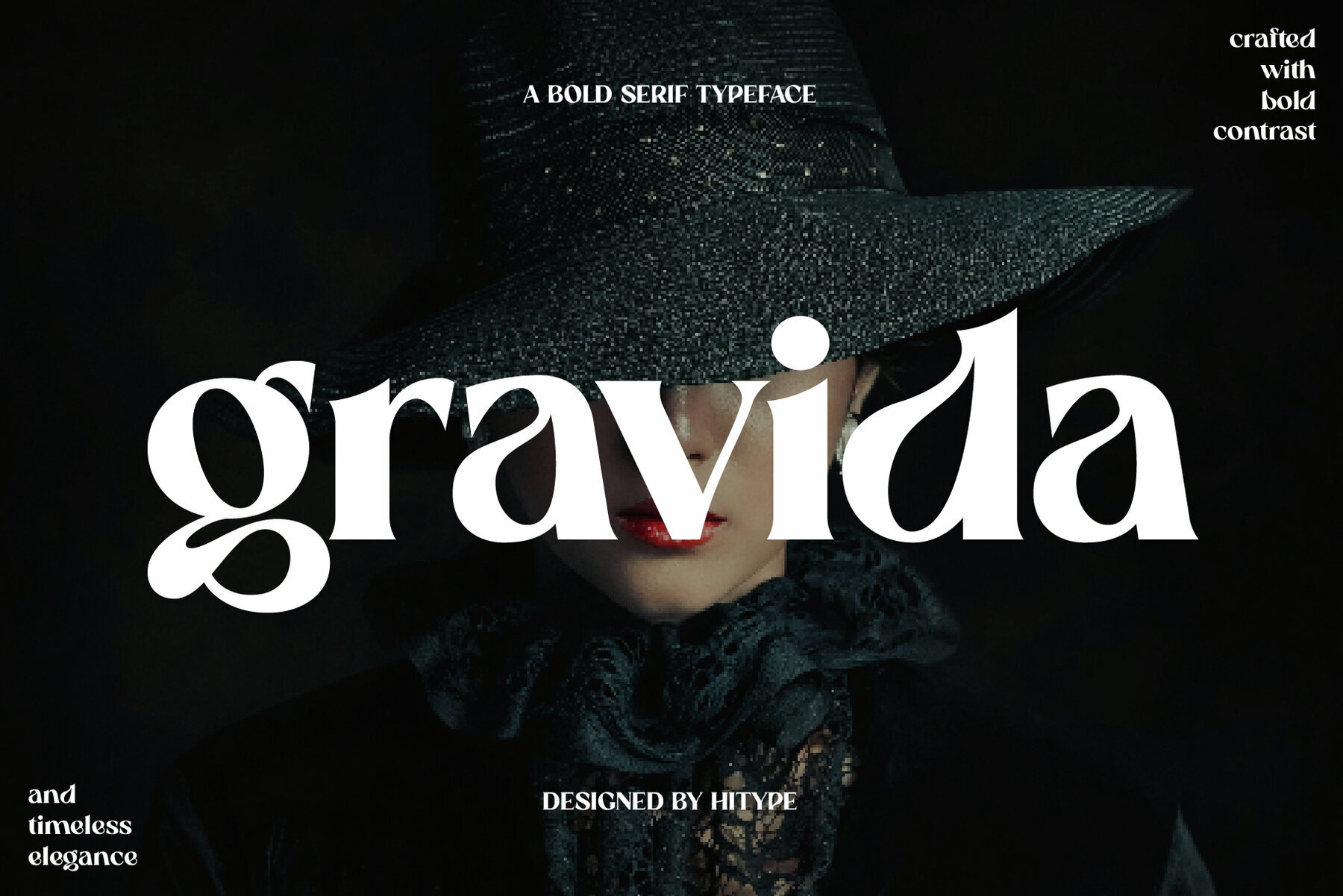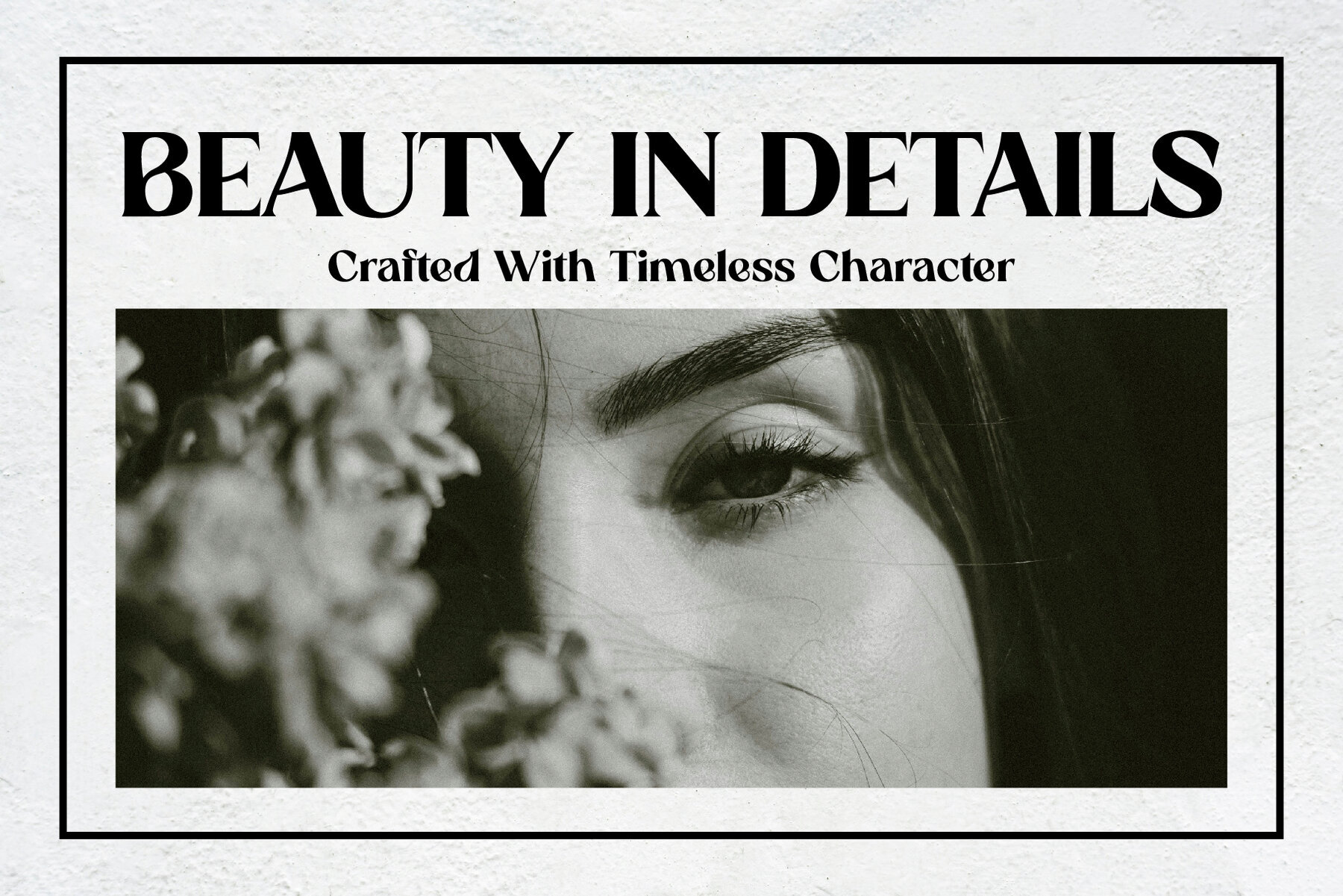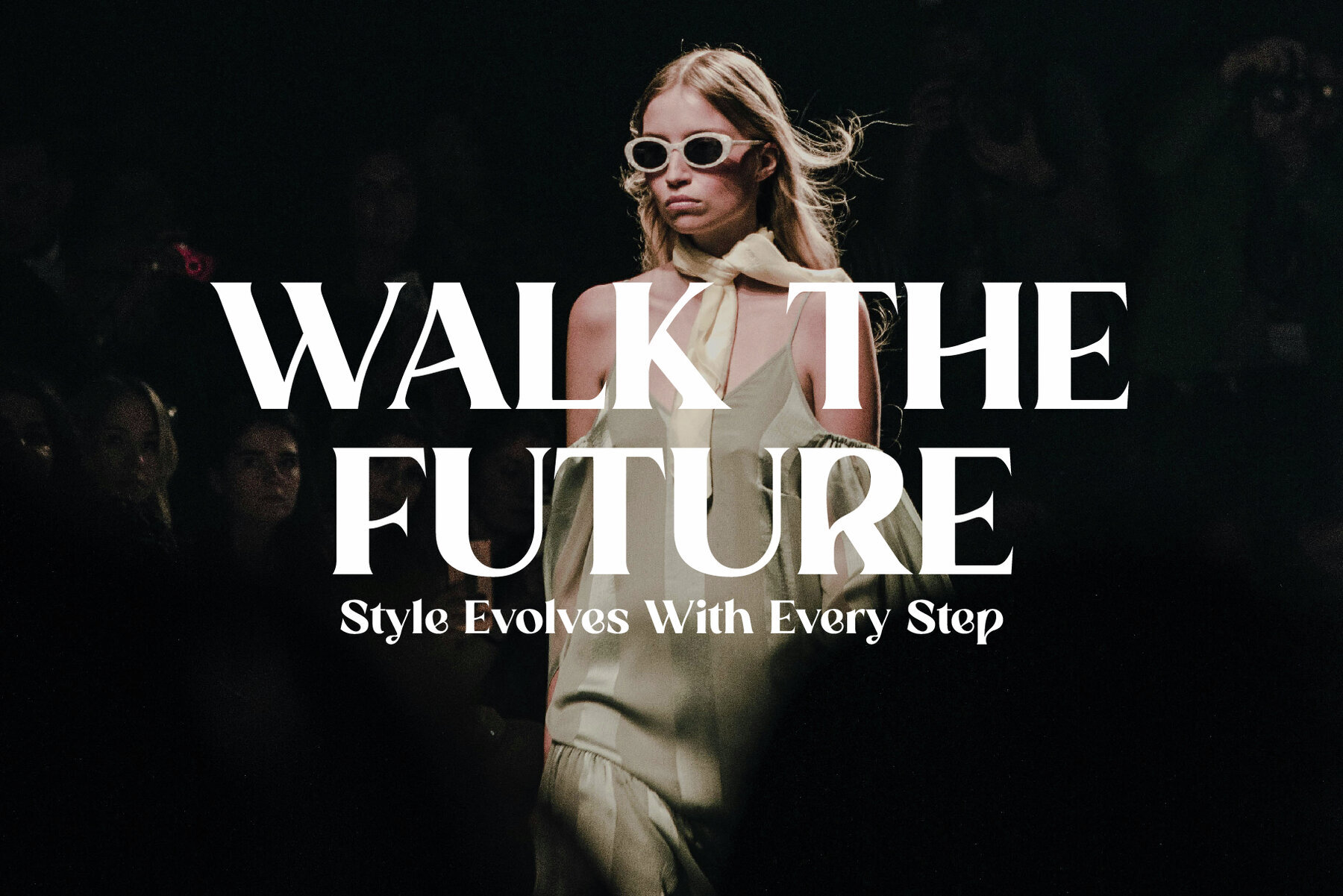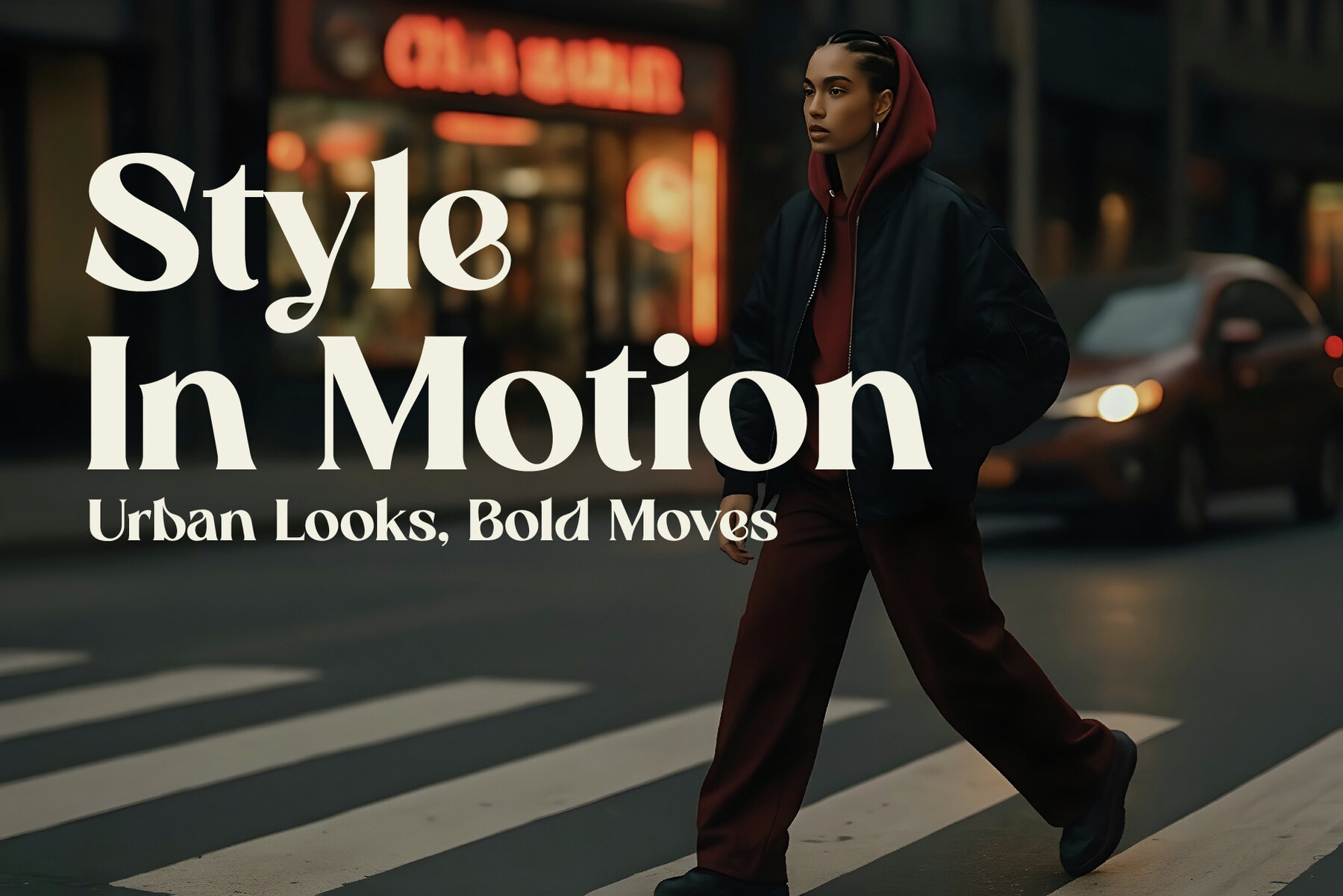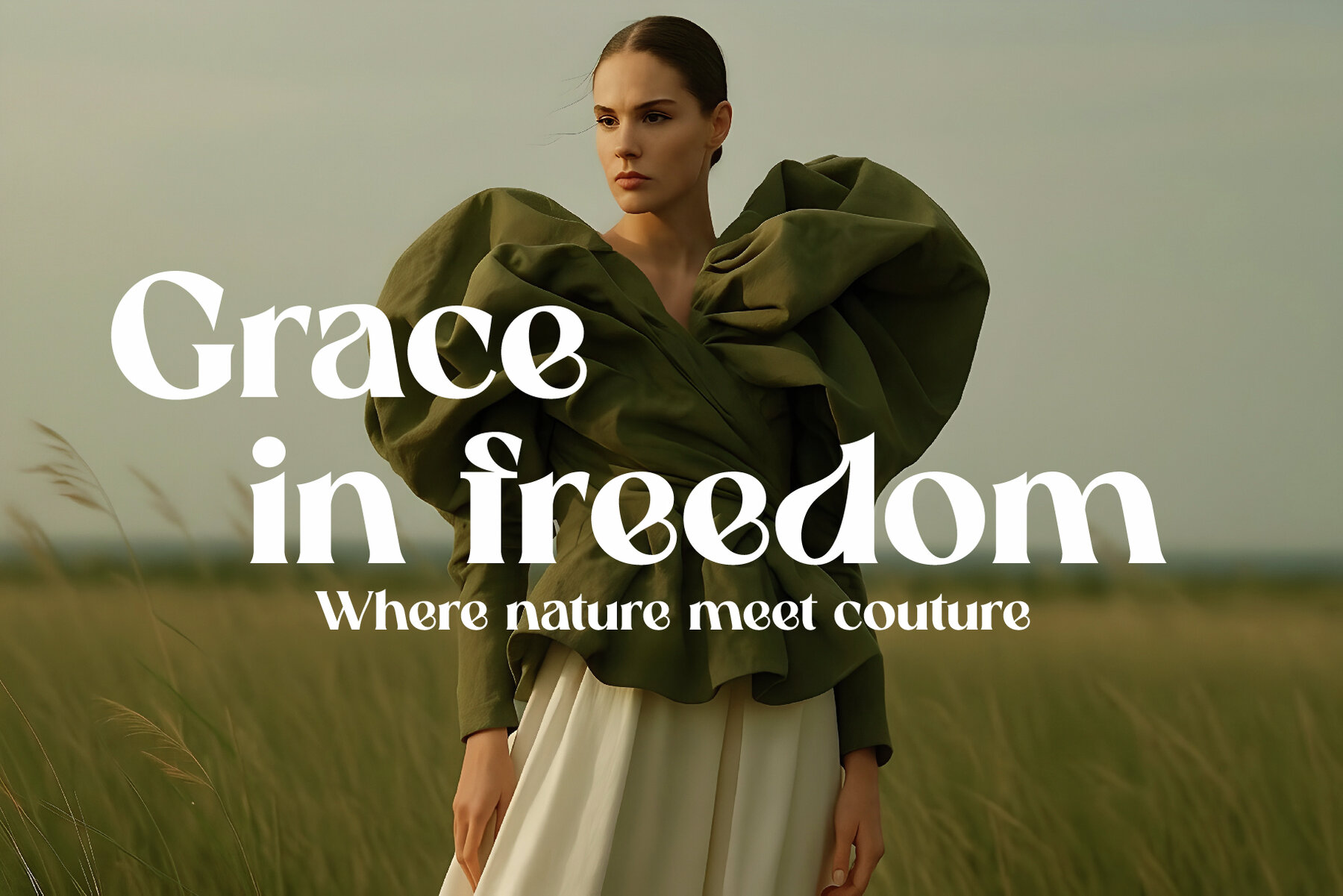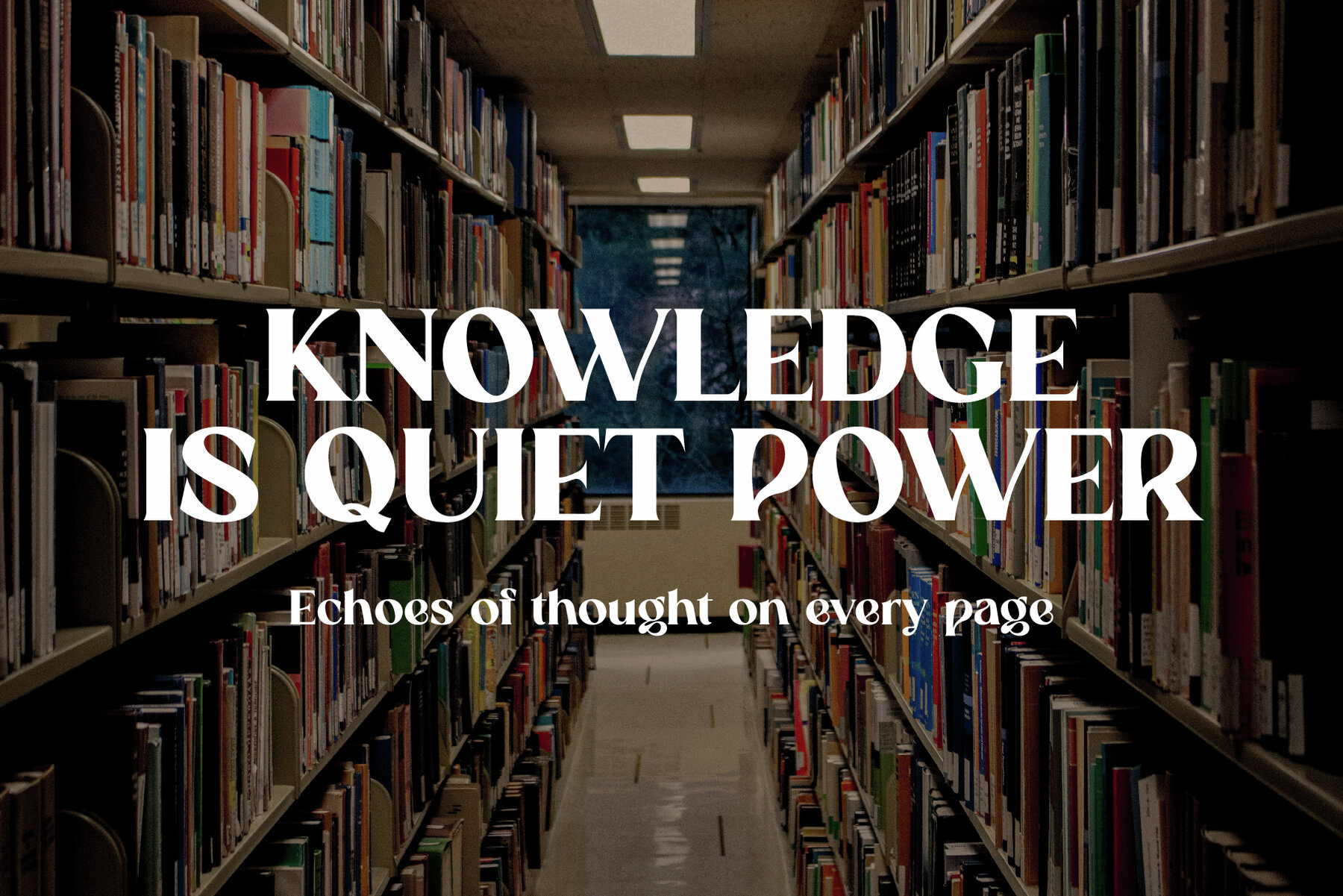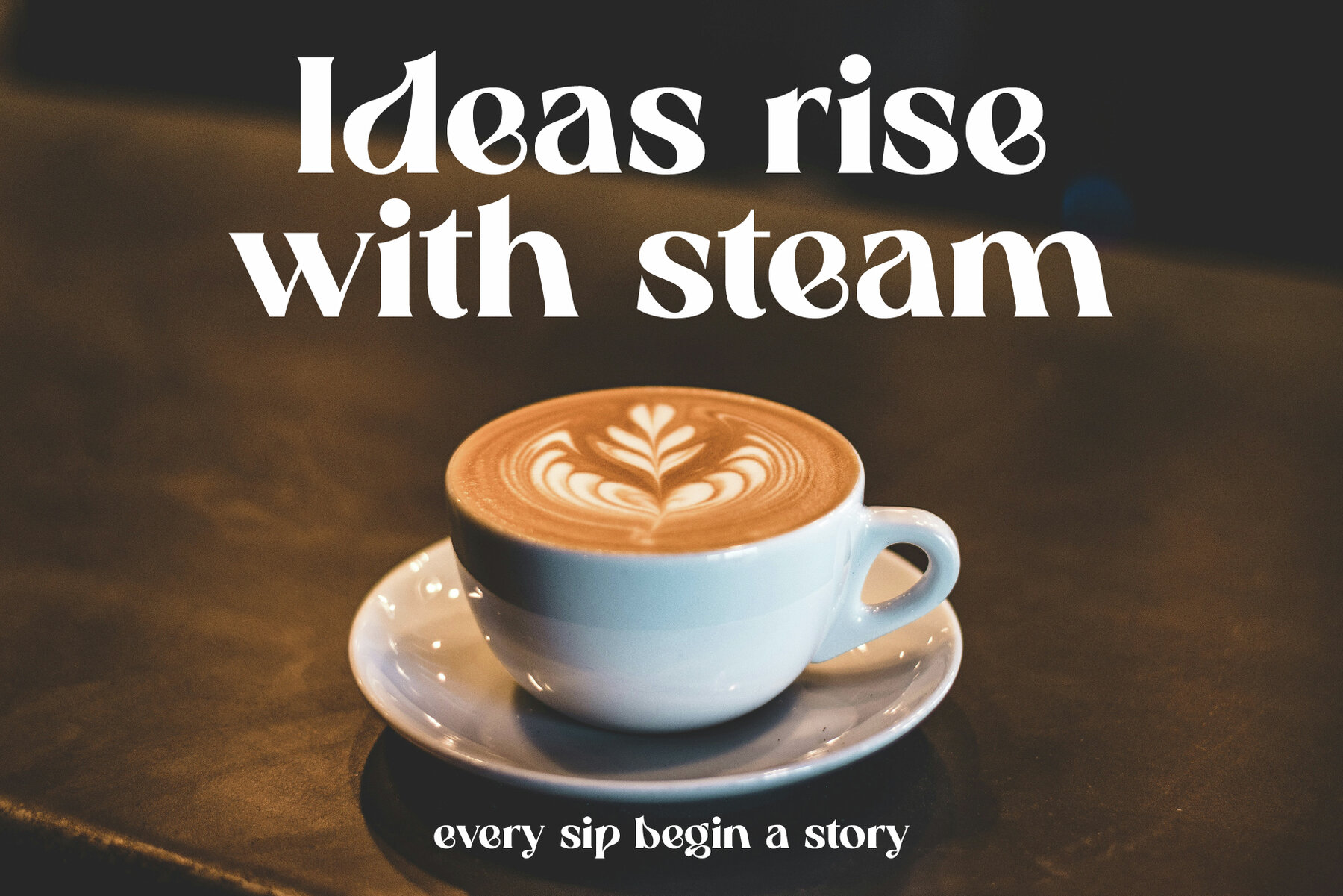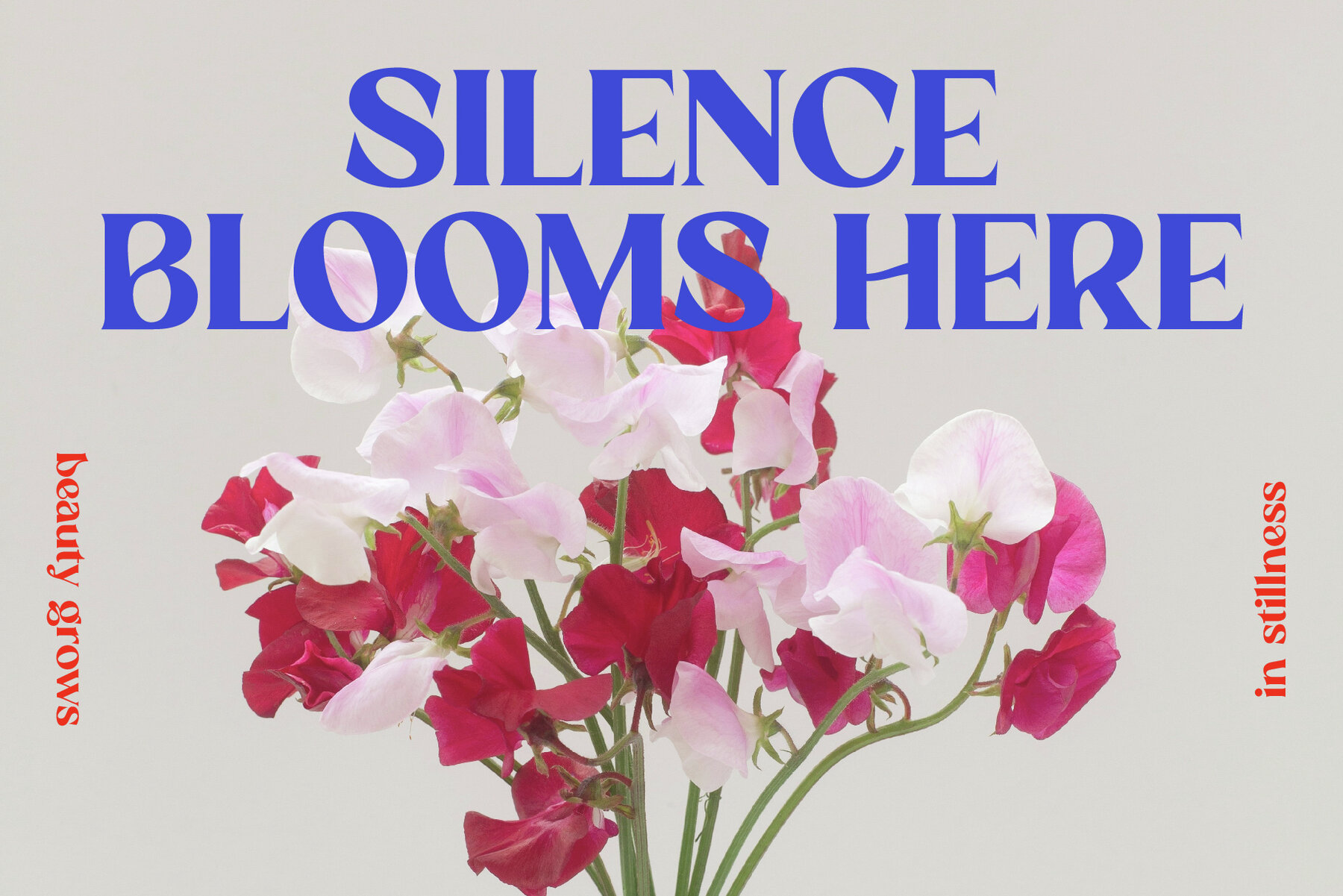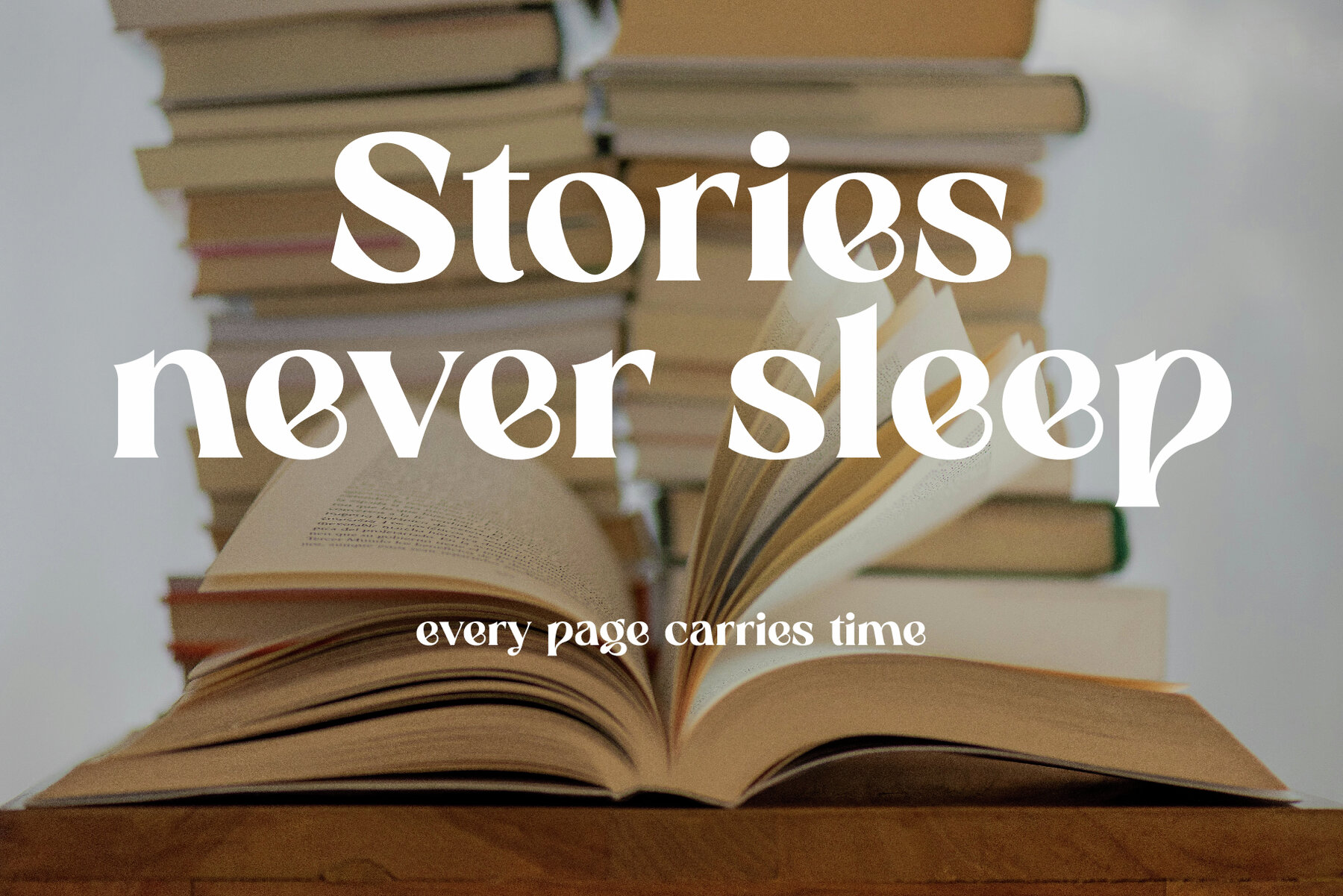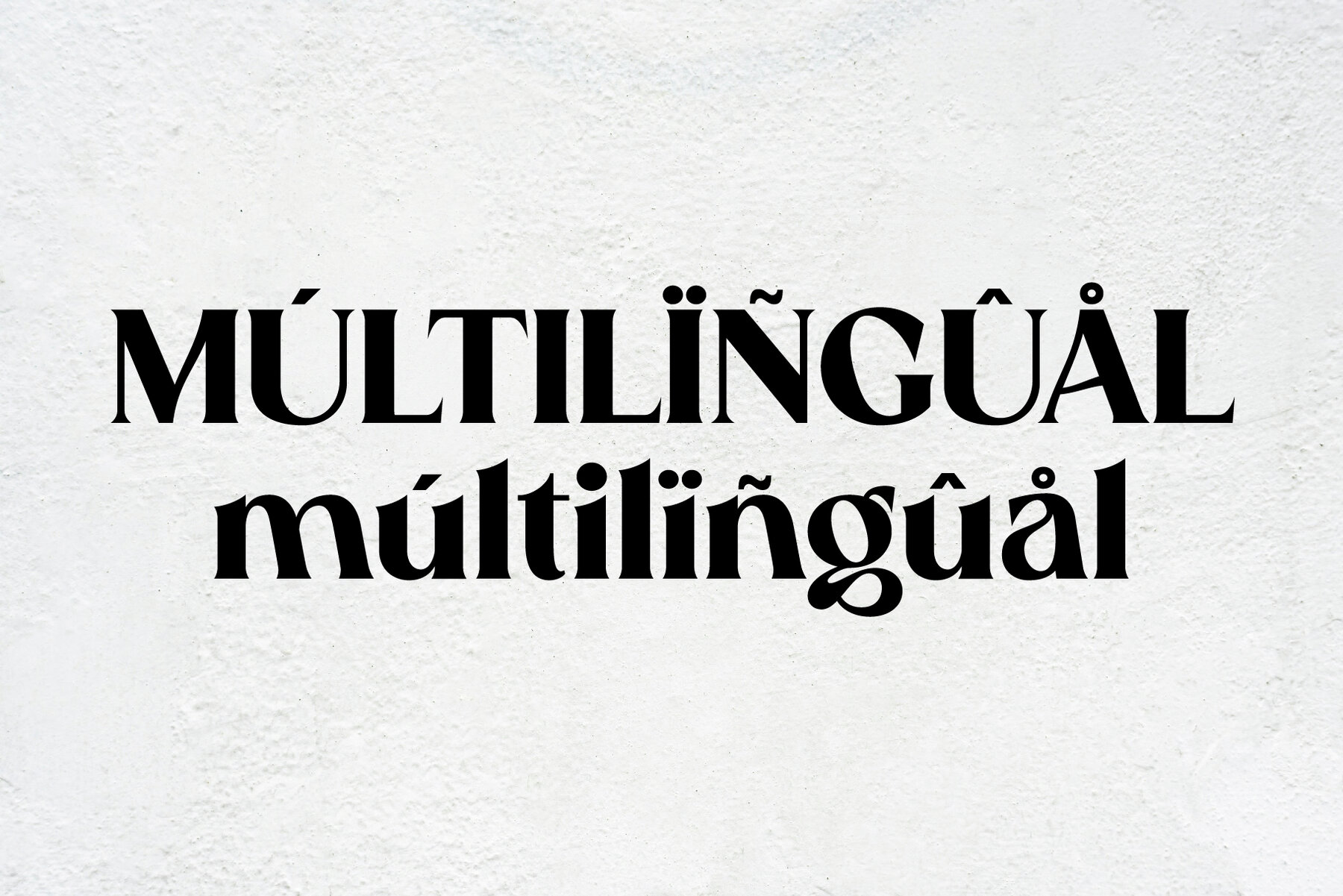
Gravida Font
Gravida
Introducing Gravida, a remarkable serif display typeface from Hitype, known for its bold strokes and refined curves. This typeface is an ideal choice for projects that demand a touch of sophistication and elegance, making it perfect for editorial design, fashion branding, posters, and logos. Gravida combines a confident presence with a timeless charm, ensuring both print and digital works captivate and engage.Gravida Typeface: Bold Elegance